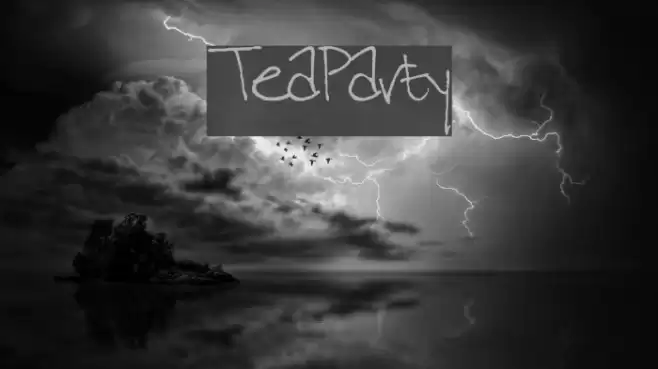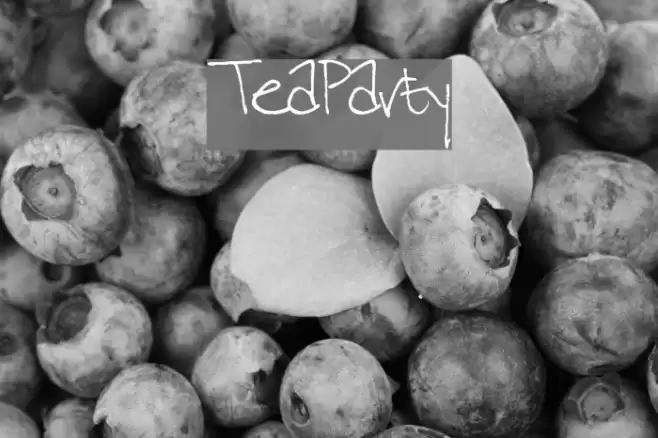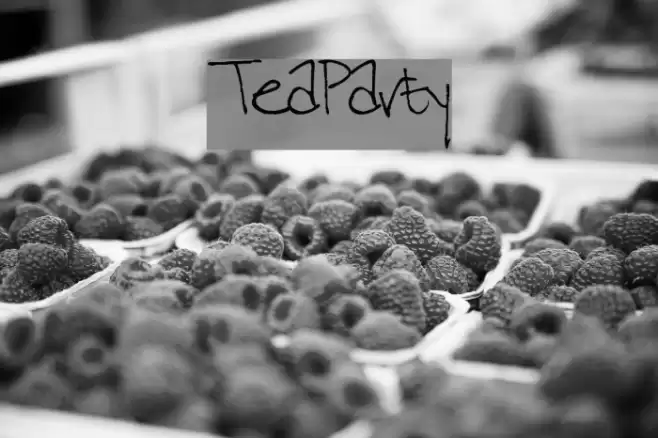
TeaParty Font
TeaParty Description
This font features a distinct handwritten style, characterized by its irregular, playful strokes that mimic the look of casual penmanship. The letters are unevenly spaced, giving it a whimsical and informal appearance. The uppercase and lowercase letters maintain a consistent style, with the uppercase being slightly more pronounced. Numbers and special characters follow the same handwritten aesthetic, adding to the font's cohesive look. The overall design is reminiscent of a personal note or a quick sketch, making it ideal for projects that require a personal touch or a creative flair.
A playful, handwritten font with irregular, whimsical strokes from Handwritten fonts.
- Proposed Projects: Ideal for greeting cards, personal blogs, creative invitations, and artistic posters.
- Character Spacing: Wide
- Overall Style: Casual, Artistic
- Use Case: Headlines, Creative projects, Informal communications